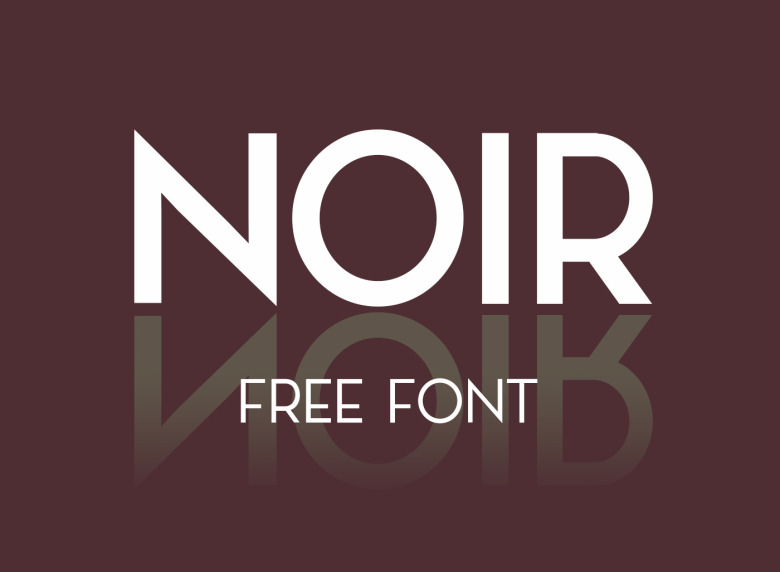
Free Modern Fonts For Logos. Adidas is a brand whose logo is based on geometric shapes, and the font complements it perfectly. Aquatico how to pick the right font for your modern logo
Doing this adds drama and creativity to the output. Like simplicity, color, typography and imagination. Adidas is a brand whose logo is based on geometric shapes, and the font complements it perfectly.
Best free google fonts for logos; Make a logo design online or browse thousands of premium logos. This font is perfect for designing titles, logos, and promotional material.
All you need to do is break free from the norm of normalcy to make a logo that will surely grab attention. If you look to the trends for the best creative logo design, you can feel the common trends in it! Make a logo design online or browse thousands of premium logos.
Click to find the best 826 free fonts in the modern logo style. Like simplicity, color, typography and imagination. Adidas is a brand whose logo is based on geometric shapes, and the font complements it perfectly.
Best Free Fonts For Logo Design.
20 fresh free fonts for creative modern logos. Every single logo designer knows, or at least should know, implementing the right font is at least as important as designing the logo symbol itself. The typeface is one of the main elements of a logo that should not be neglected.
It Is Modern, Urban And Highly Legible.
Tenre, a font designed by jacopo severitano, has an interesting feel to it and can be used for logos, letterheads, and other unique modern designs. Ad use the #1 online logo maker. Logo design, branding, packaging, posters, brochures, flyers, display ads.